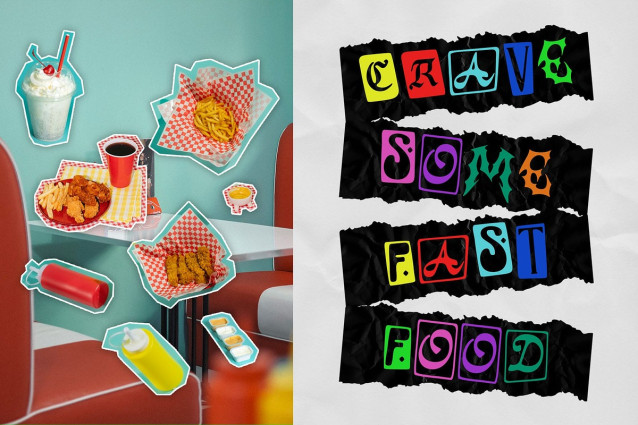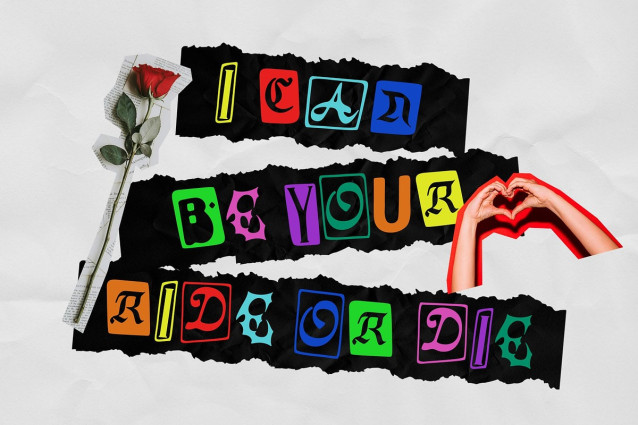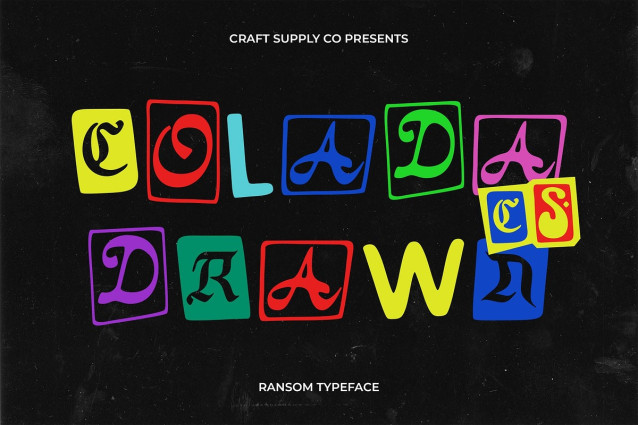
CS Colada Drawn Font
CS Colada Drawn is a display font that captures the raw energy of collage and ransom styles. Featuring randomly styled cut-out letters layered with a drawn effect, it brings a playful, bold, and unconventional character to any project.
Handmade Drawn Effect for Artistic Expression The drawn effect adds a handcrafted touch to each letterform, giving the font an authentic and artistic appearance. This unique texture enhances the expressive quality of the design, perfect for visuals that aim to feel raw, creative, and full of personality.
Dynamic and Eye-Catching Design Every letter in this display font is designed to be visually striking and dynamic. The irregularity and boldness of its forms make it ideal for grabbing attention in posters, music covers, zines, and any design that seeks to make a strong, artistic statement. With its sharp edges, unexpected letterforms, and layered feel, this display font commands attention from the first glance.
Perfect for Experimental and Creative Projects It transforms text into artwork, making headlines, titles, and typographic compositions more impactful and memorable. Its unpredictable style encourages visual experimentation and playful layouts. Whether you’re designing edgy music posters, independent zines, experimental graphics, or branding that dares to break conventions, this collage font with drawn effect delivers a unique and unforgettable impression with its bold, funky style.